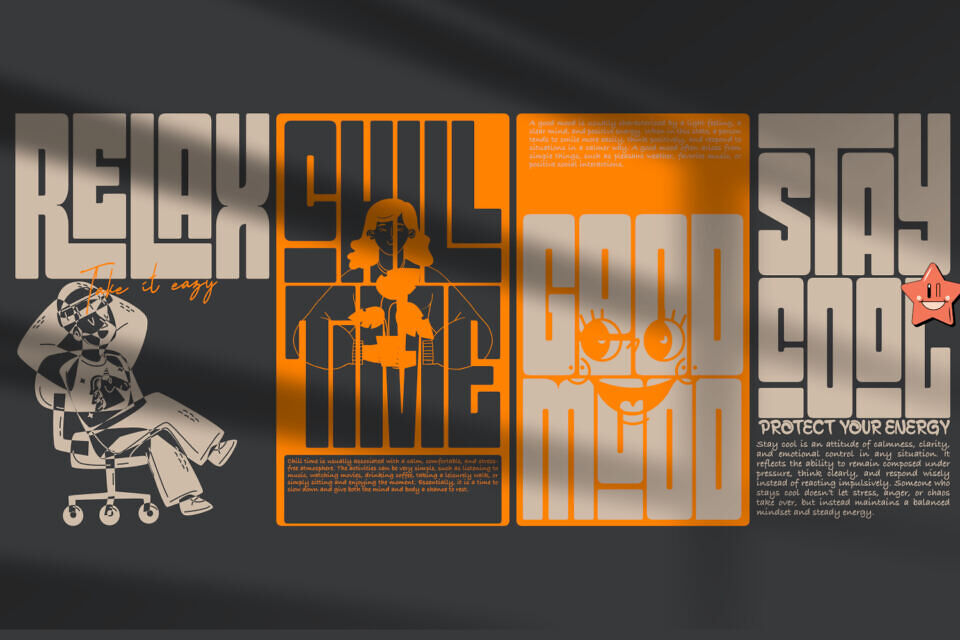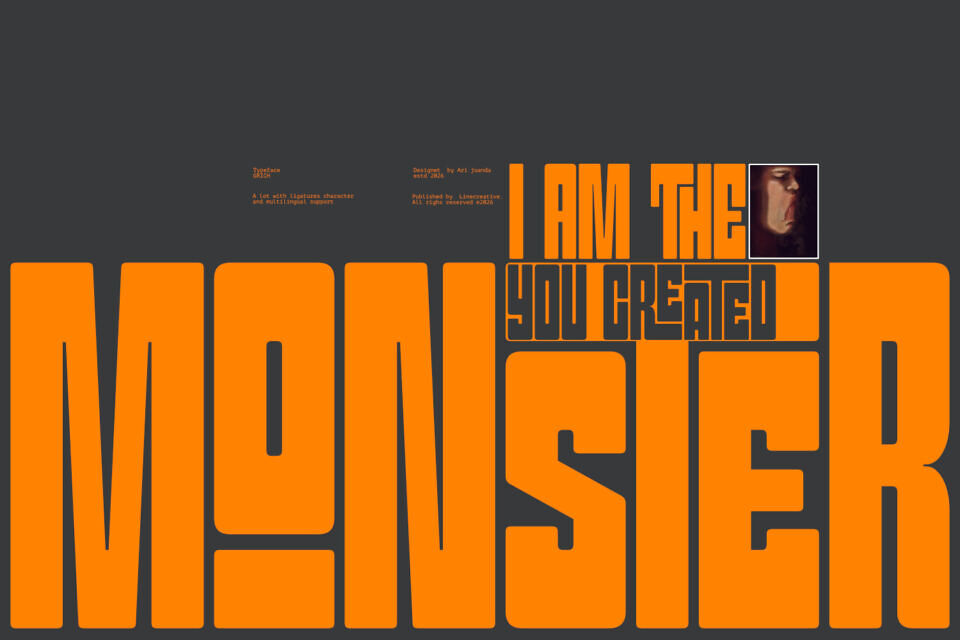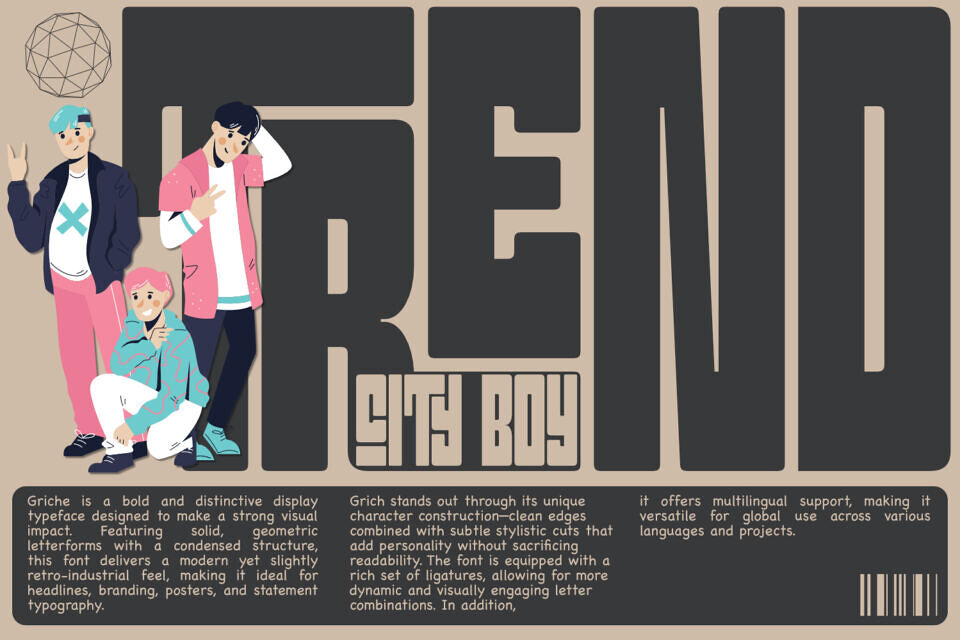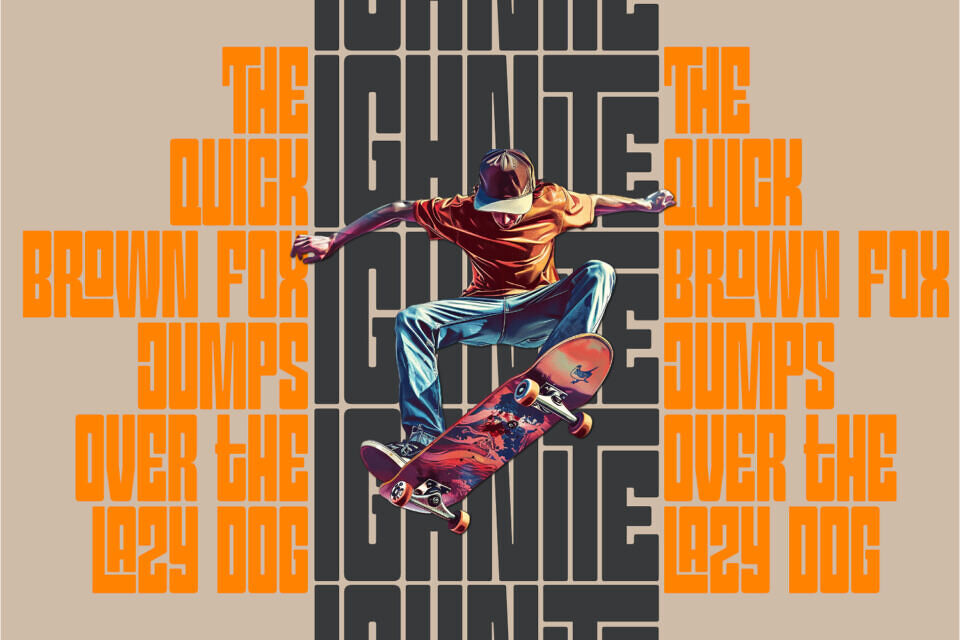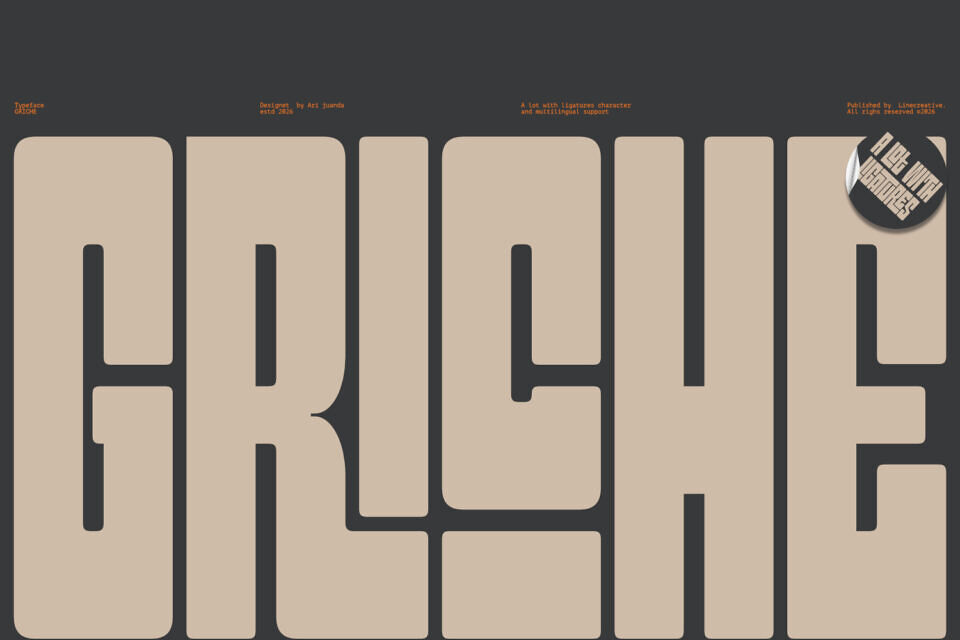
Griche Font
Griche is a bold and distinctive display typeface designed to make a strong visual impact. Featuring solid, geometric letterforms with a condensed structure, this font delivers a modern yet slightly retro-industrial feel, making it ideal for headlines, branding, posters, and statement typography.
Griche stands out through its unique character construction—clean edges combined with subtle stylistic cuts that add personality without sacrificing readability. The font is equipped with a rich set of ligatures, allowing for more dynamic and visually engaging letter combinations. In addition, it offers multilingual support, making it versatile for global use across various languages and projects.